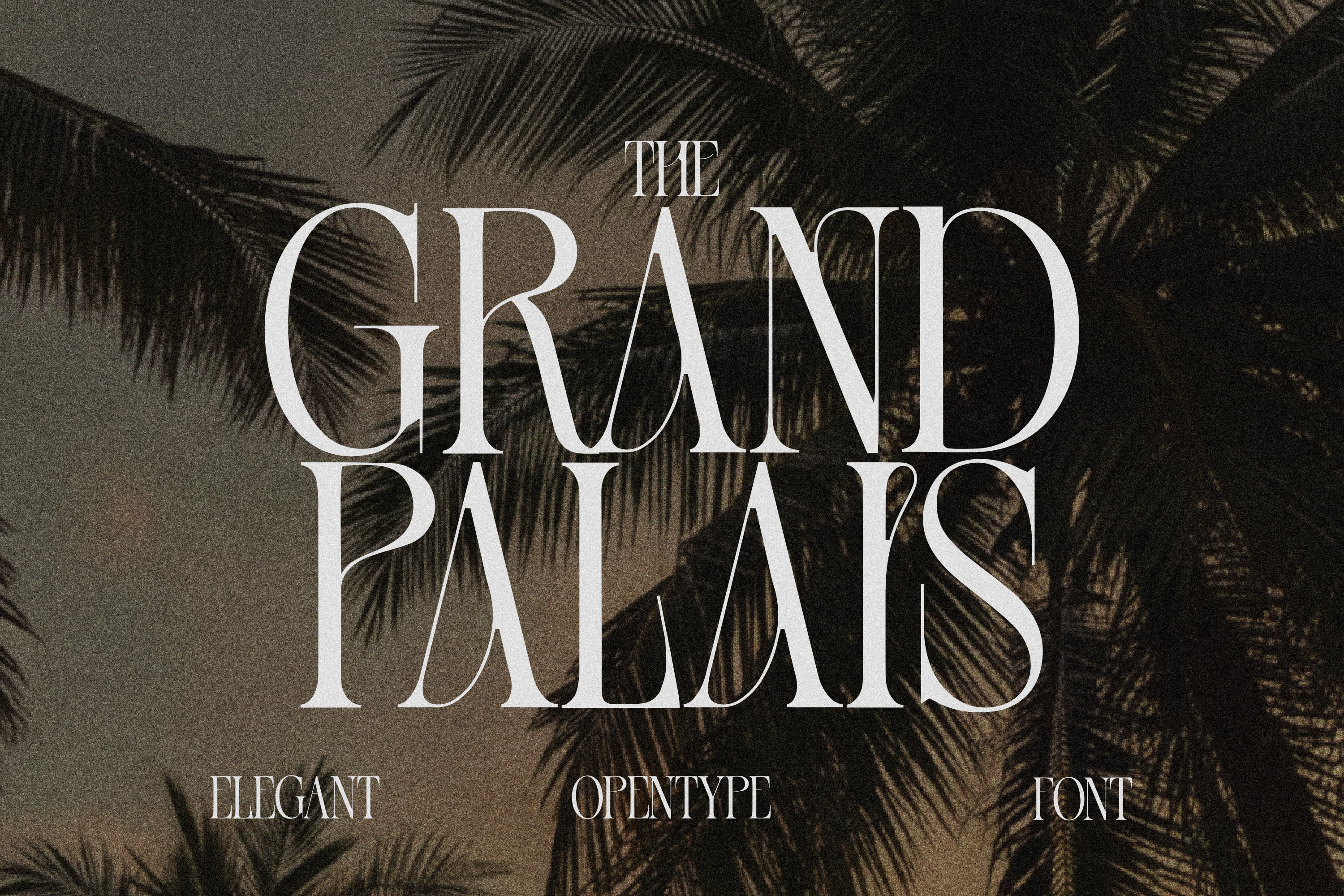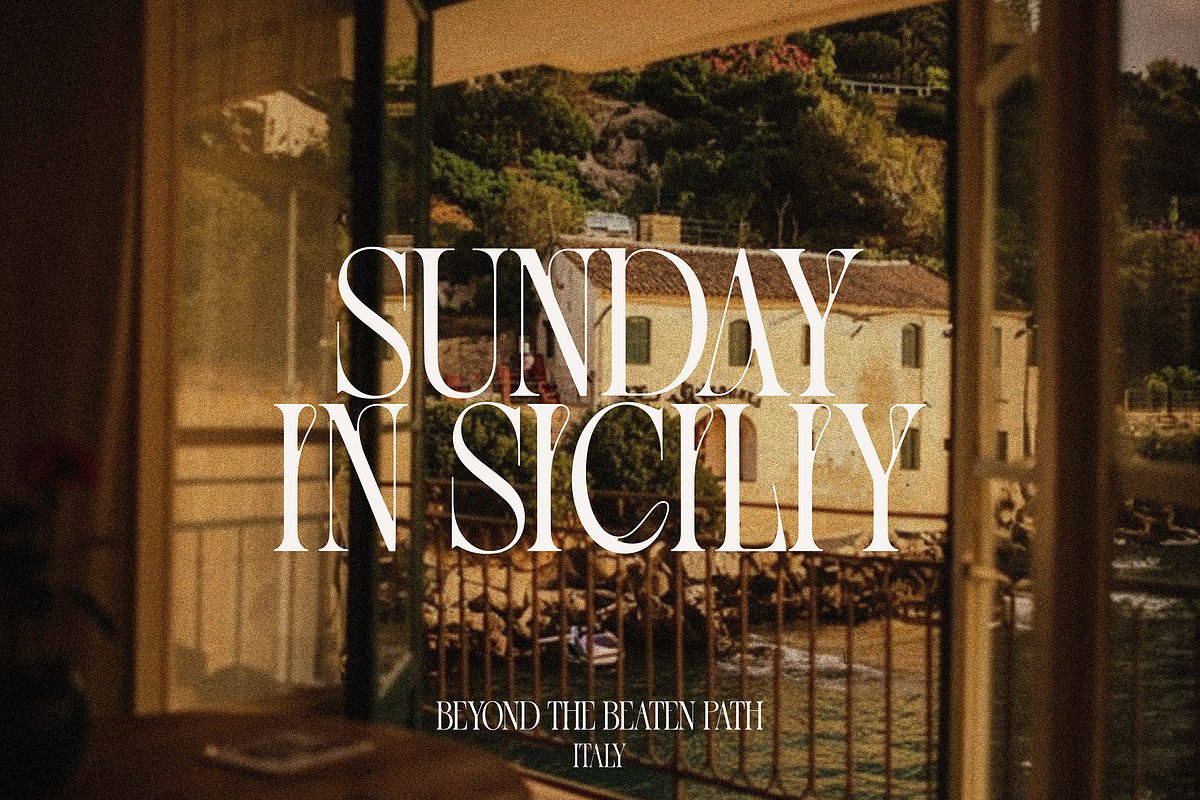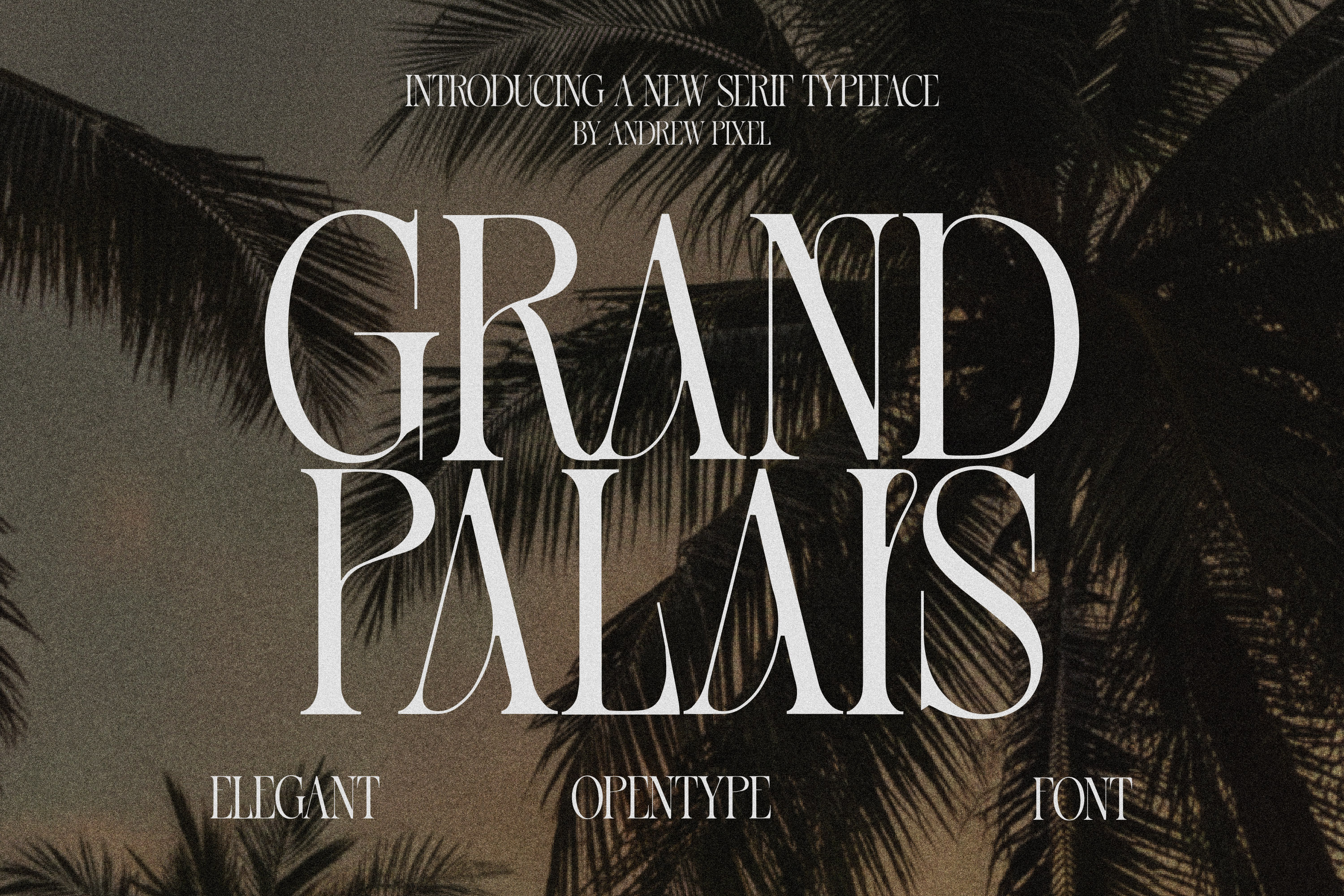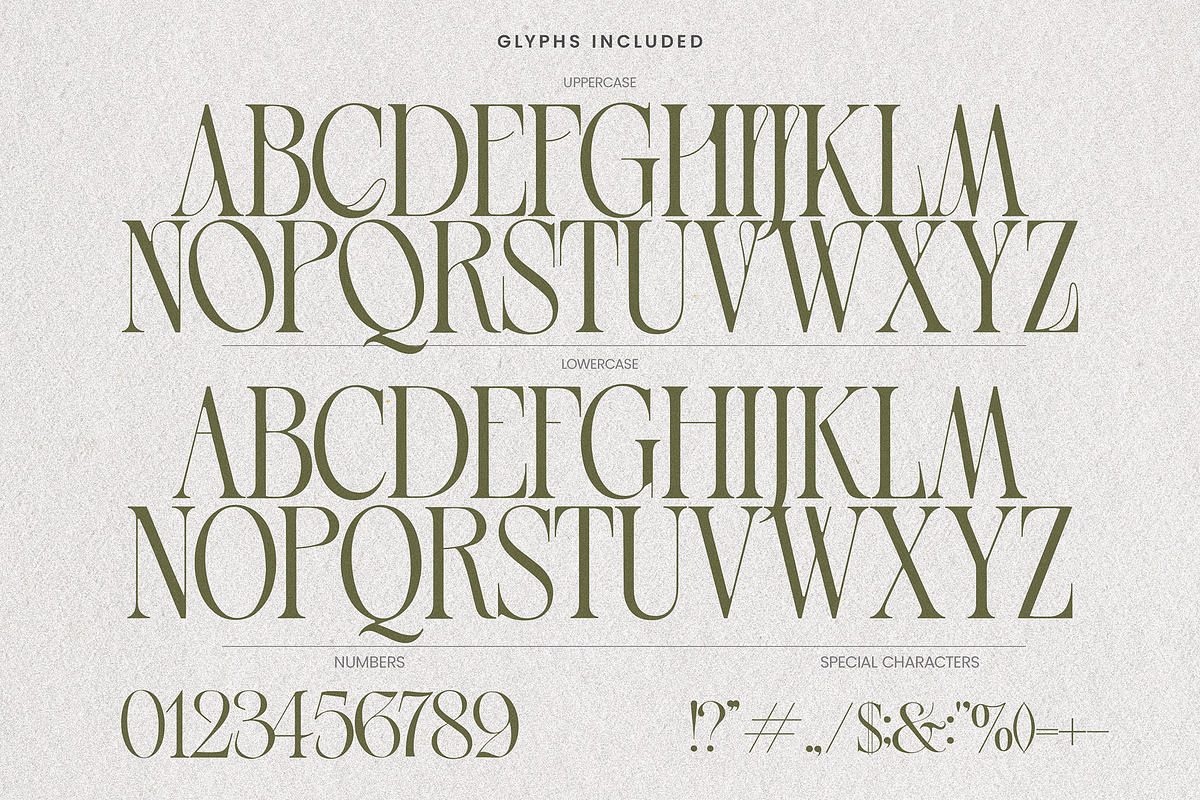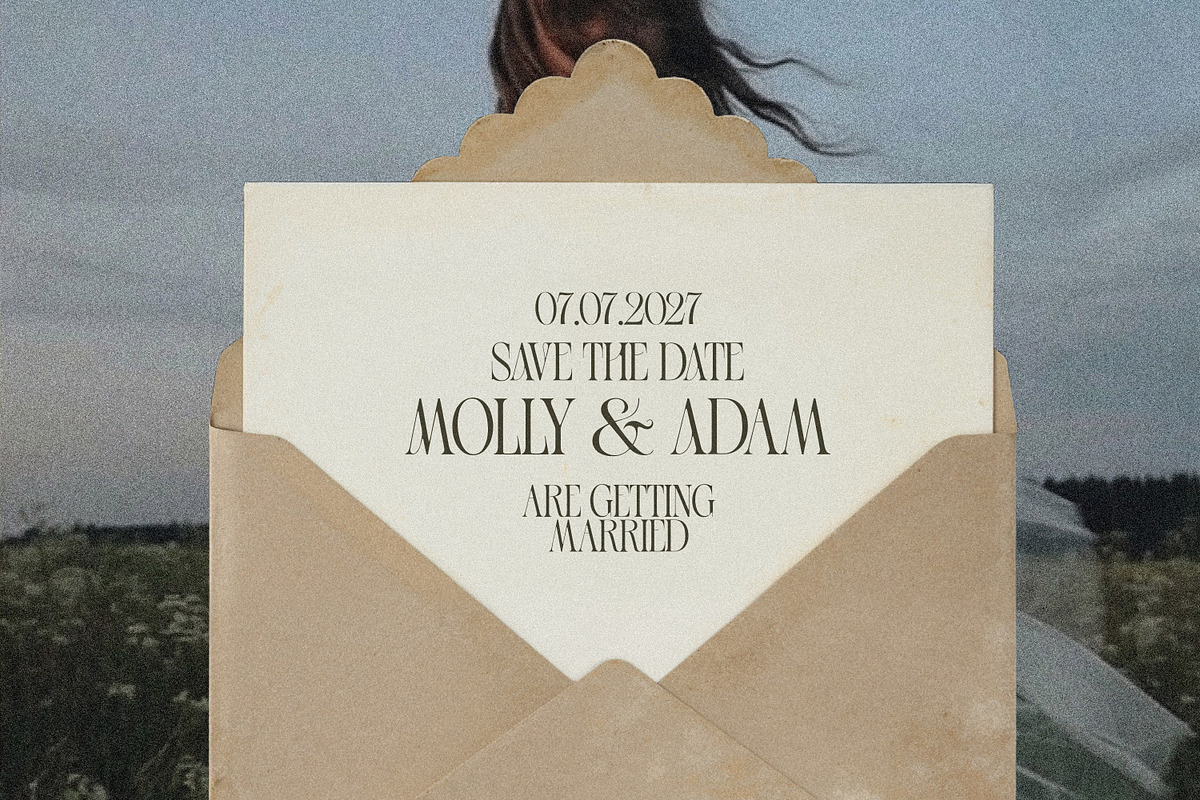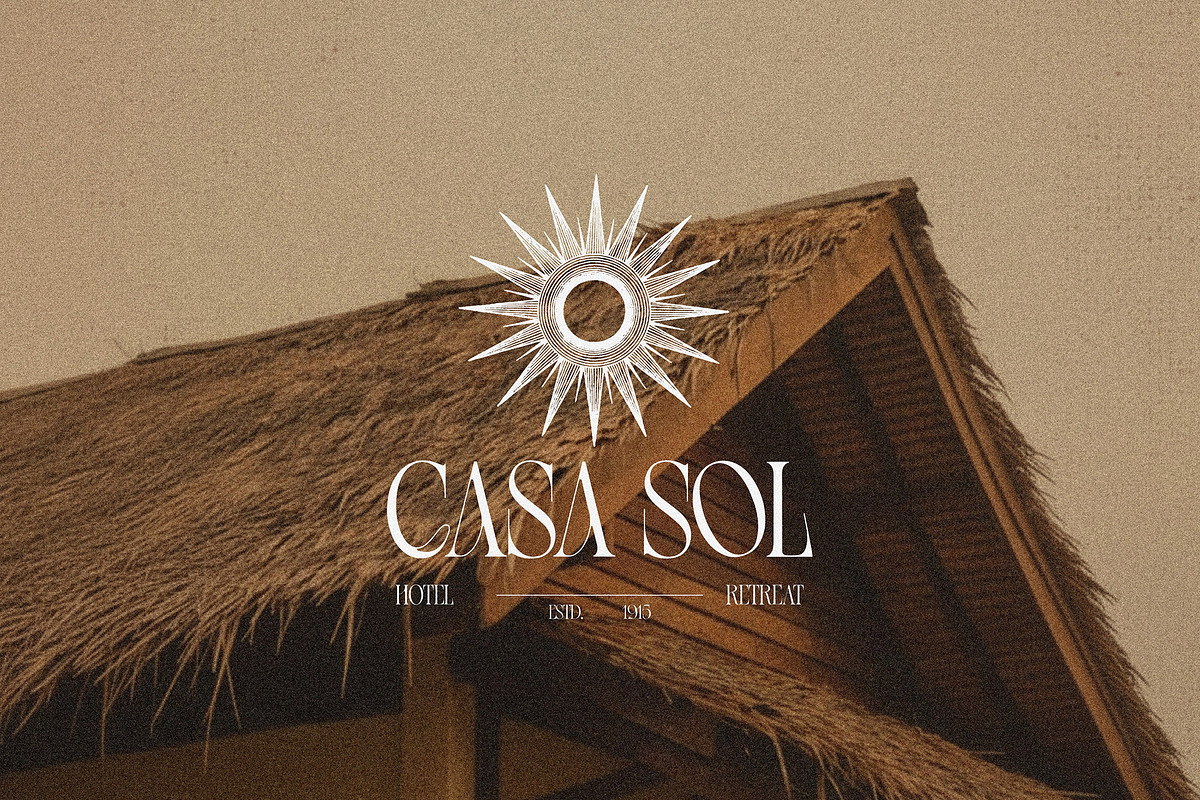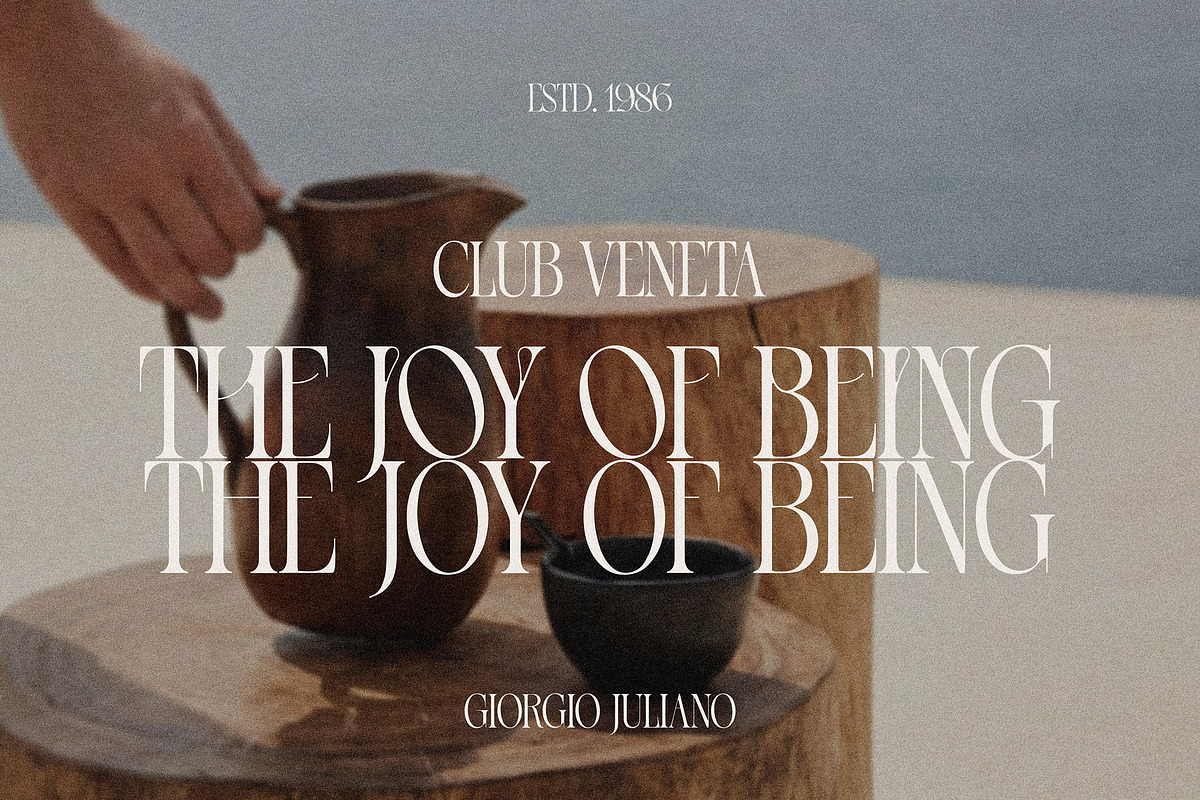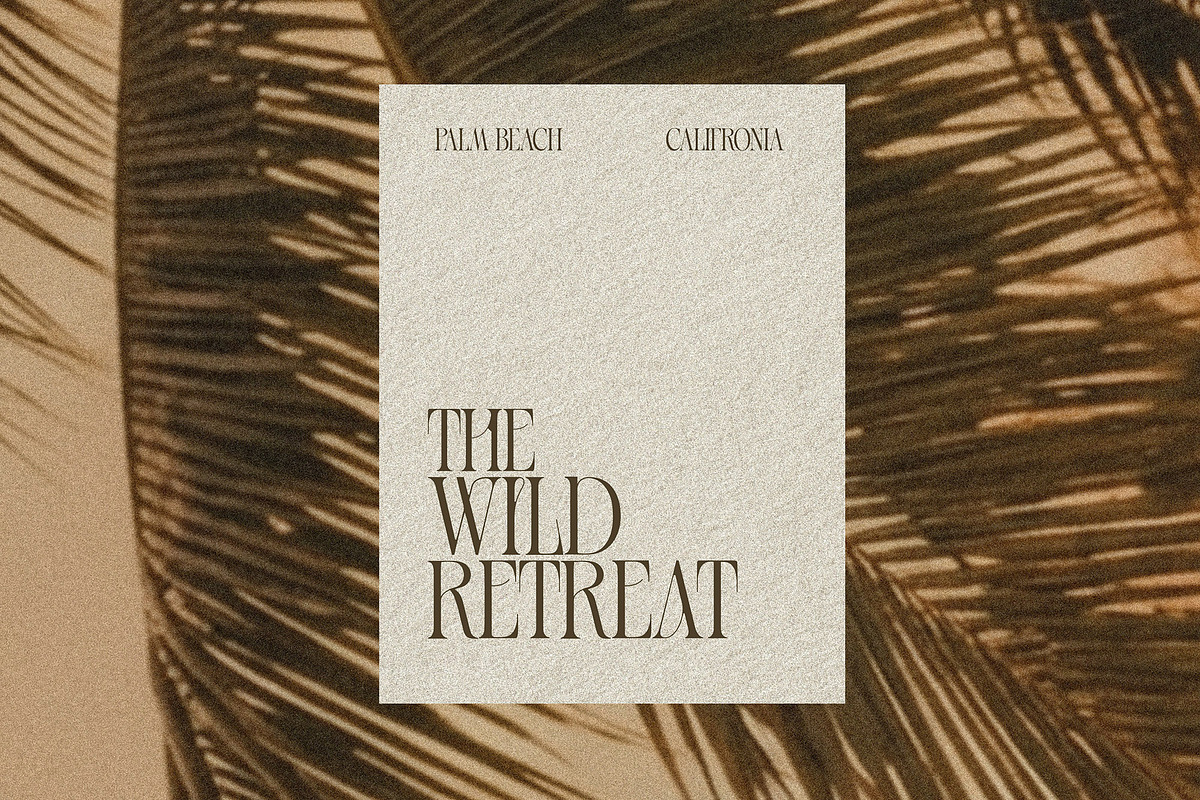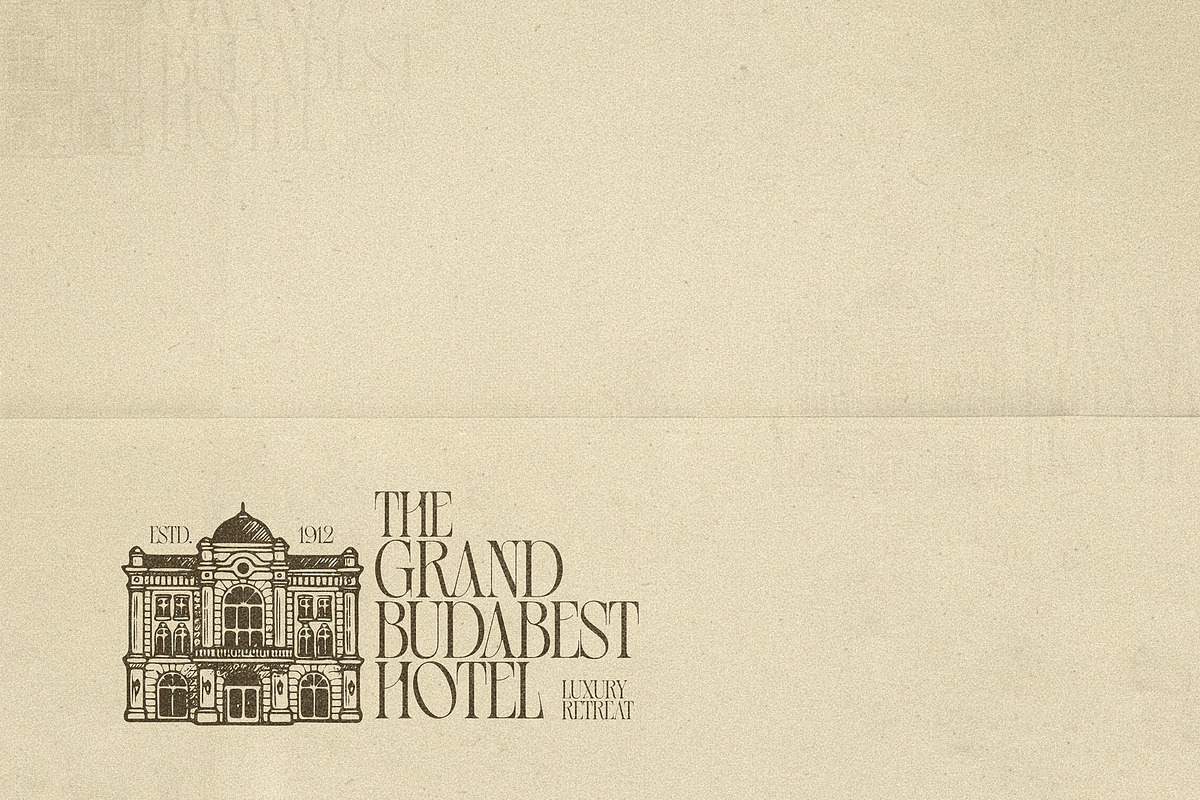
Grand Palais - Elegant Logo Font
The Grand Palais is a display serif font that effortlessly blends modern luxury with vintage charm. Characterized by its dramatic contrast between thick and thin strokes, sweeping curves, and luxurious forms, this typeface is designed for branding projects that demand elegance.
Whether you are designing a high-end fashion campaign, a boutique hotel identity, or minimalist wedding stationery, The Grand Palais provides that elusive "expensive" look instantly. Its tall, condensed structure allows for impactful headlines that feel both nostalgic and contemporary.
This Font Is Perfect For:
Luxury Brand Identities: Perfect for logos involving jewelry, perfume, high-end fashion, or interior design firms.
Editorial Design: Ideal for magazine mastheads, fashion editorials, and book covers that require a luxurious aesthetic.
Wedding Stationery: Use it for the names of the couple on invitations, save-the-dates, and welcome signage to create a modern, chic wedding vibe.
Hospitality Branding: Excellent for boutique hotels, upscale restaurants, or cocktail bars looking for a logo that suggests history and class.
Packaging Design: Great for wine labels, candle boxes, or organic skincare products where typography is the main visual element.